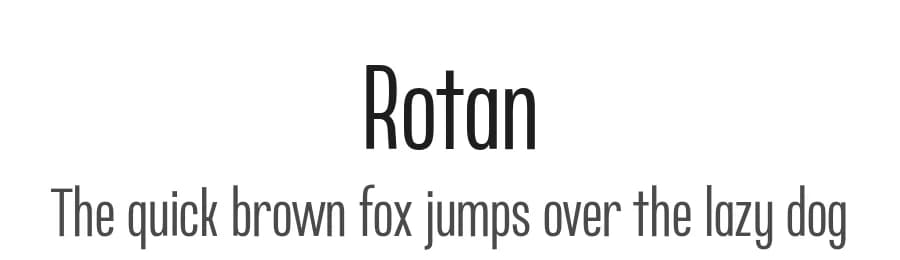
About Rotan Font
Rotan is a sans-serif font designed by Aku Fadhl. It includes 102 glyphs, a regular weight, OTF (CFF) format, and 107 languages. Rotan is free to download; check the license details on this page before commercial use. Sans-serif fonts like Rotan work best for clean body text, user interfaces, branding, and modern layouts.
Rotan Font is a versatile sans-serif font that works for both headings and body text. Pair it with a contrasting serif or slab serif font to add visual interest and a clear distinction between titles and body copy.
Rotan Font
by Aku Fadhl
Rotan Font is a sans serif typeface by Aku Fadhl, ideal for logos, invitations, branding, and creative projects.